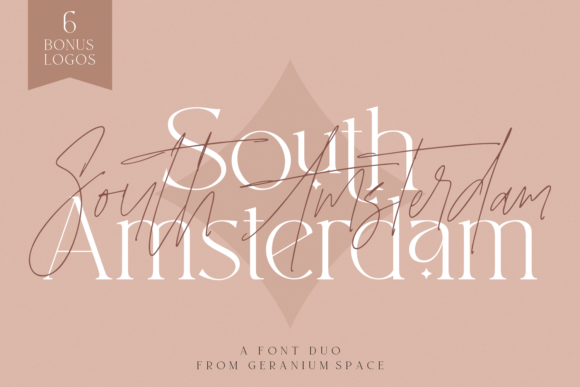
Behold, the South Amsterdam Font, a visual masterpiece crafted by Geranium.co, the masterminds behind extraordinary typefaces. Dip your creative toes into the world of script and serif bliss and unleash your imagination like never before.
Step into the enchanting world of South Amsterdam, a storybook font duo that adds a touch of magic to every letter you write. Its graceful curves and elegant lines evoke a bygone era, where words danced on paper with a timeless charm. Let your imagination run wild as you craft logos that exude sophistication, wedding invitations that whisper romance, and headings that command attention.
With South Amsterdam, the possibilities are endless. Picture your designs adorned with this font, captivating your audience with its timeless beauty. Logos will radiate with an air of authority, wedding invitations will transport guests to a fairy-tale realm, and headings will demand attention with their regal presence.
But it doesn't stop there. South Amsterdam is a versatile chameleon, adapting seamlessly to a kaleidoscope of creative endeavors. T-shirts will come alive with unique designs, letterheads will exude professionalism, signage will draw eyes like a magnet, and labels will add a touch of elegance to your products.
Dive into the realm of news and posters, where South Amsterdam's eloquence will make your messages shine. Create badges that leave a lasting impression and watch as your designs flourish with captivating visuals.
No matter your creative vision, South Amsterdam is your trusted companion, transforming your ideas into tangible works of art. It's the font that adds a touch of sophistication to any project, turning your words into visual symphonies that resonate with your audience.
So, embark on this creative journey with South Amsterdam, the font that ignites your imagination and captivates your audience. Let your creativity soar as you witness the transformative power of this typographic masterpiece.